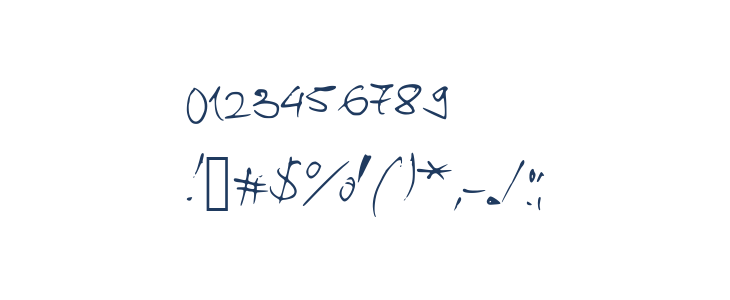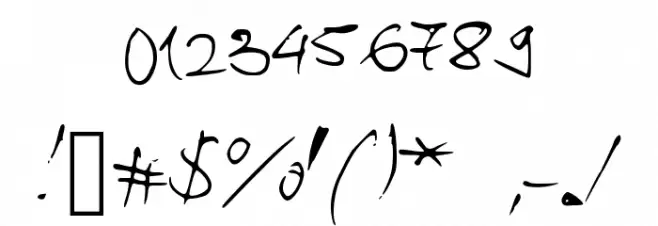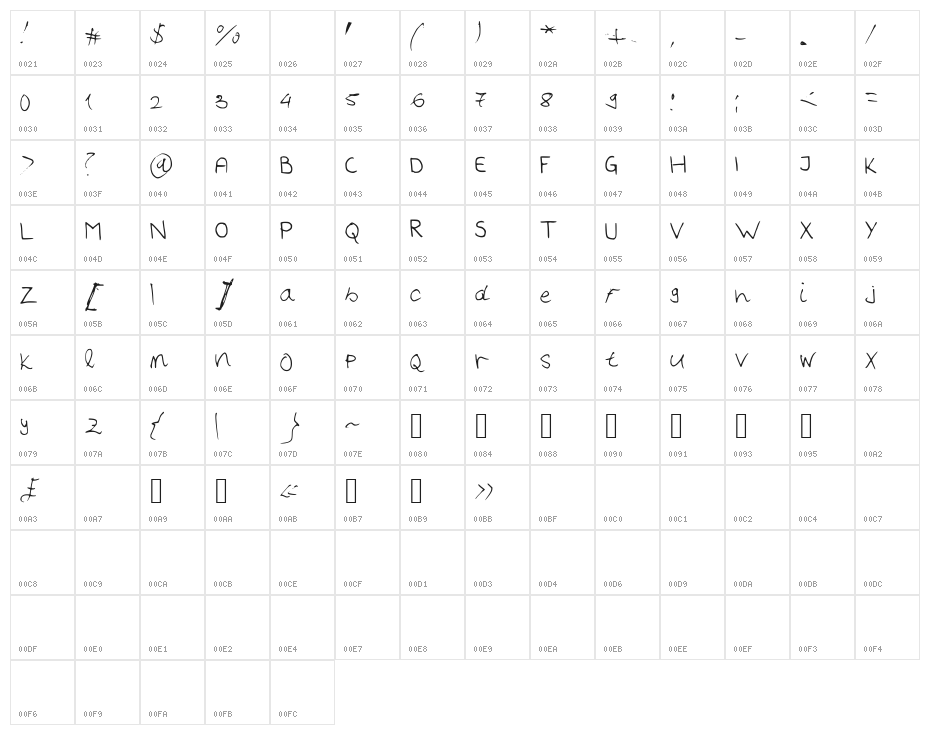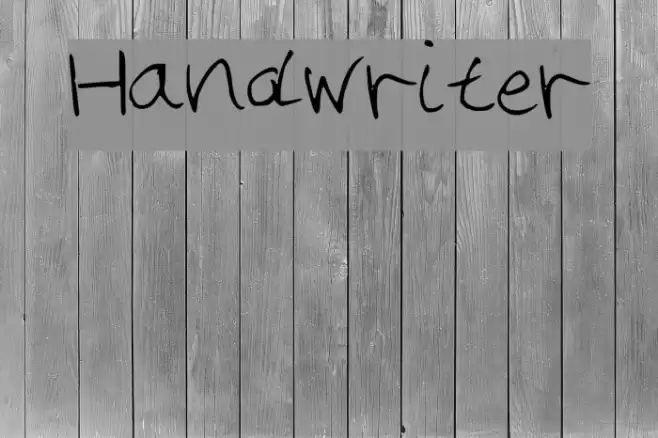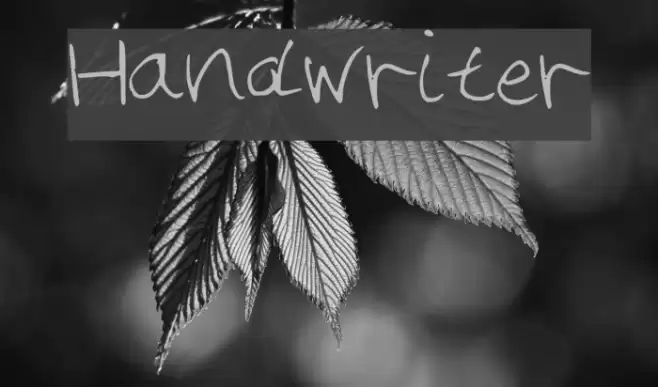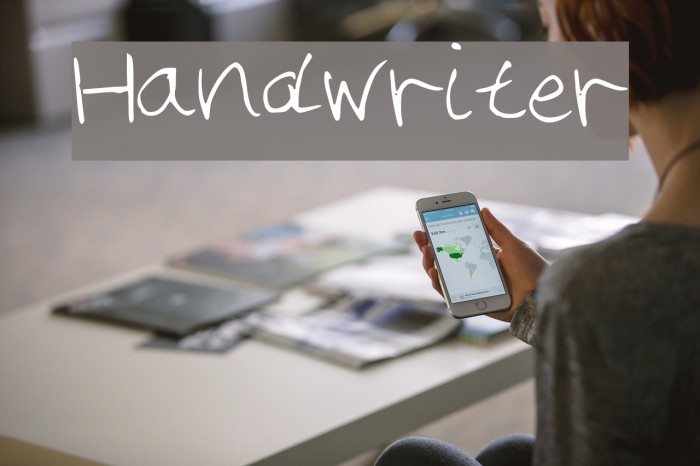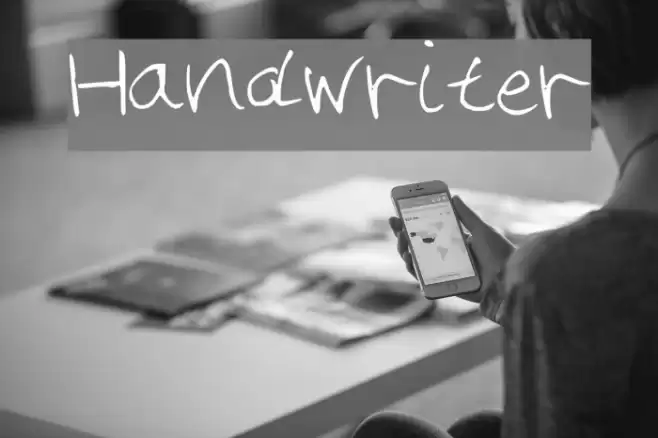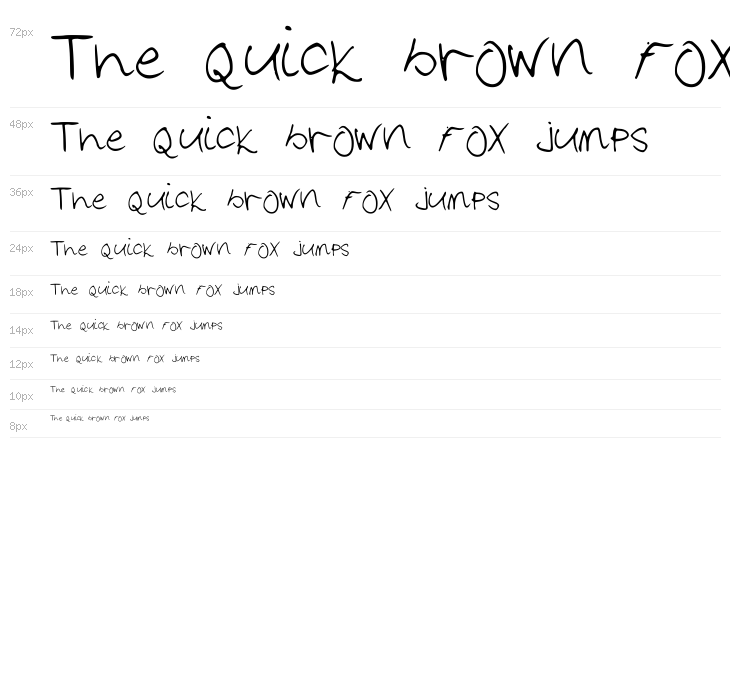
Handwriter Font
Handwriter Description
This font exudes a casual, handwritten style, reminiscent of personal notes or informal letters. The characters are slightly irregular, adding a touch of authenticity and warmth. The uppercase letters are bold and confident, while the lowercase letters maintain a fluid and connected appearance, enhancing the handwritten feel. The numbers are clear and legible, with a playful twist that matches the overall style. Special characters are creatively integrated, maintaining the font's cohesive look. This font is perfect for projects that require a personal touch, such as greeting cards, invitations, or creative branding.
| Overall Style | Casual, Personal |
| Use Case | Headlines, Invitations, Personal notes |
| Proposed Projects | Ideal for greeting cards, personal notes, invitations, and creative branding. |